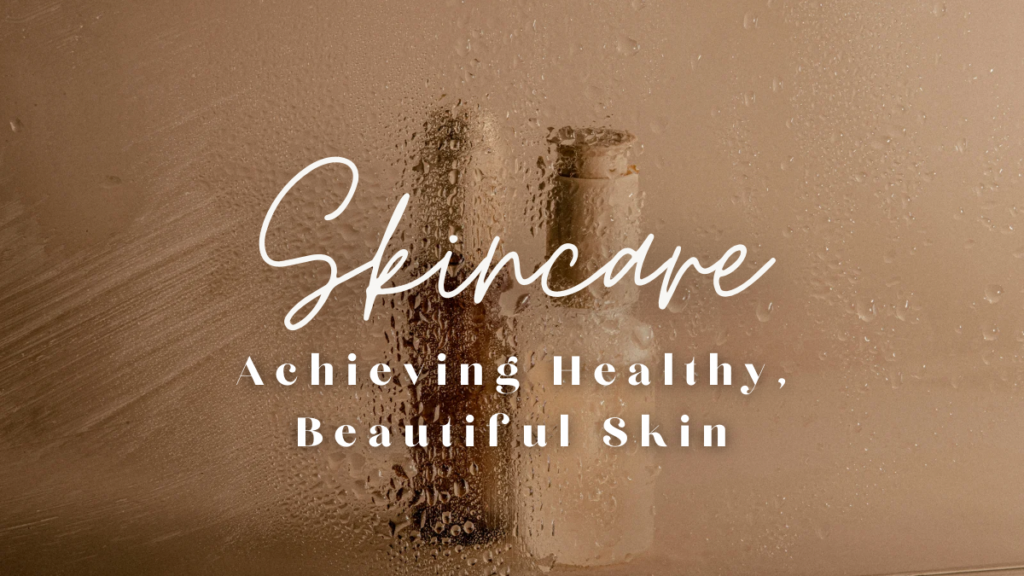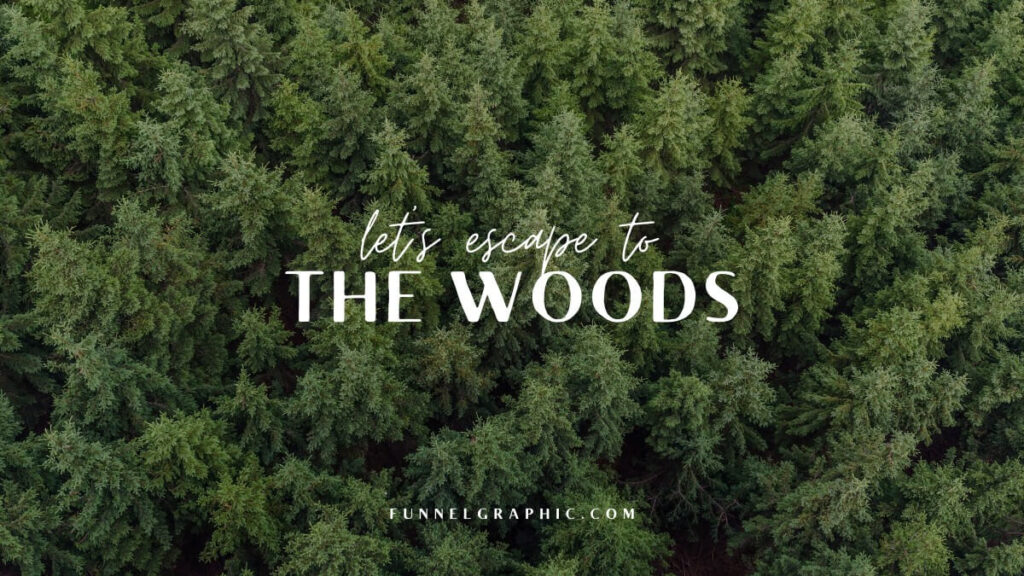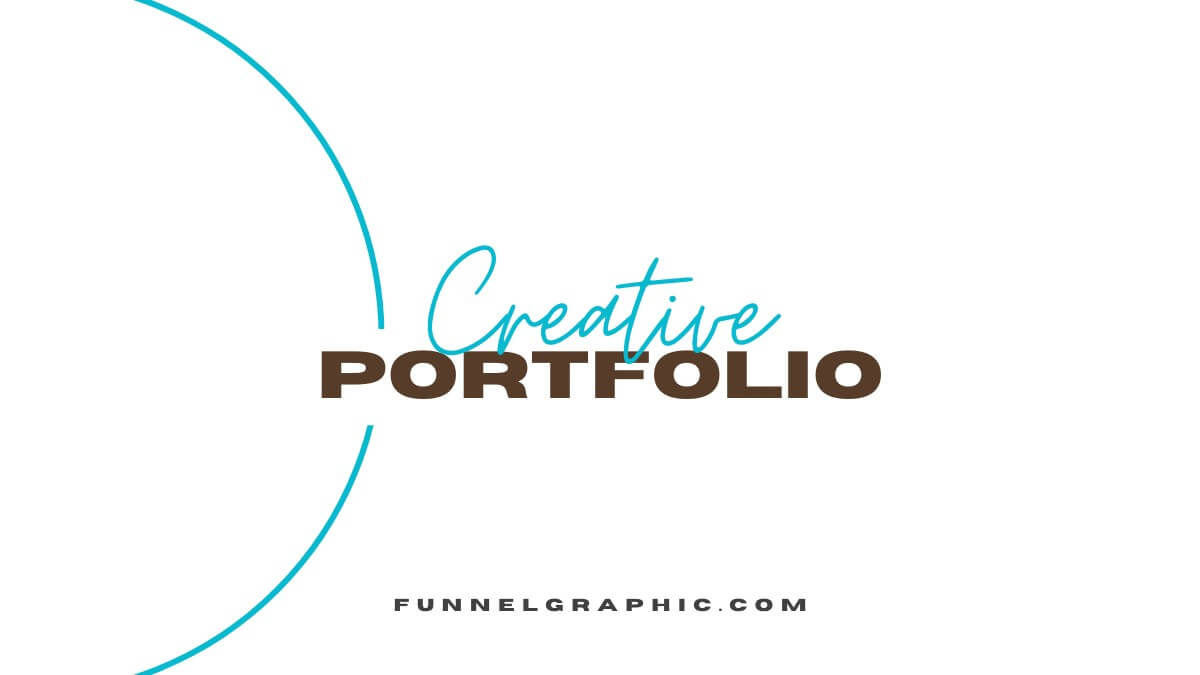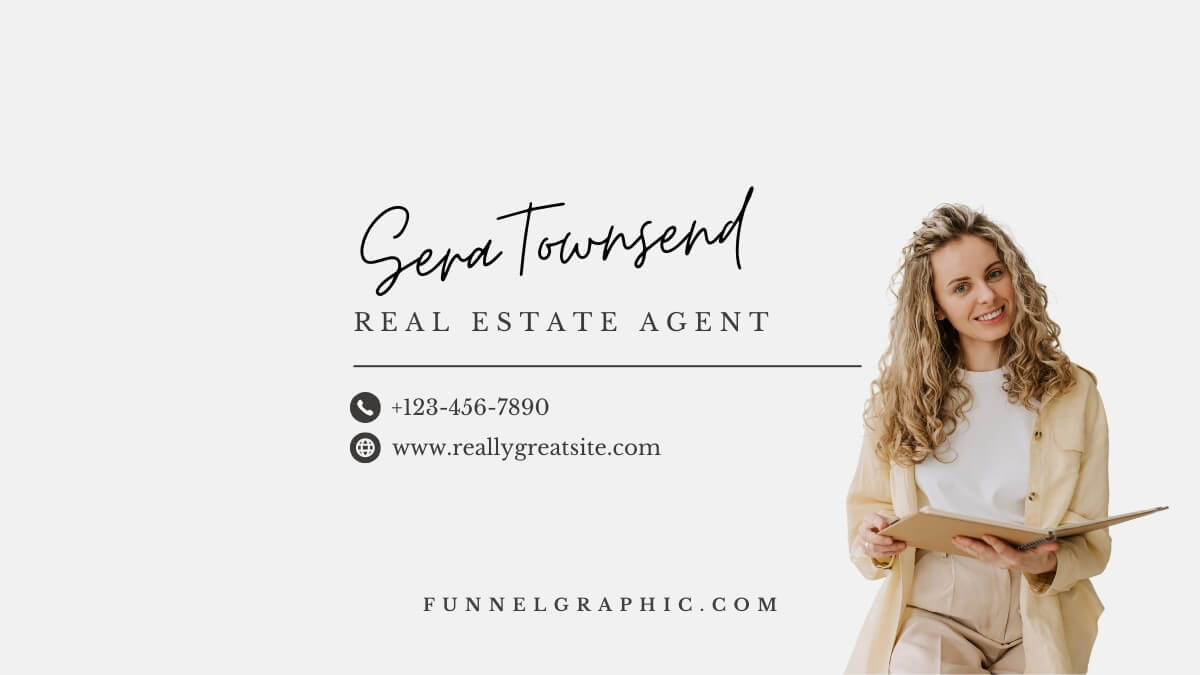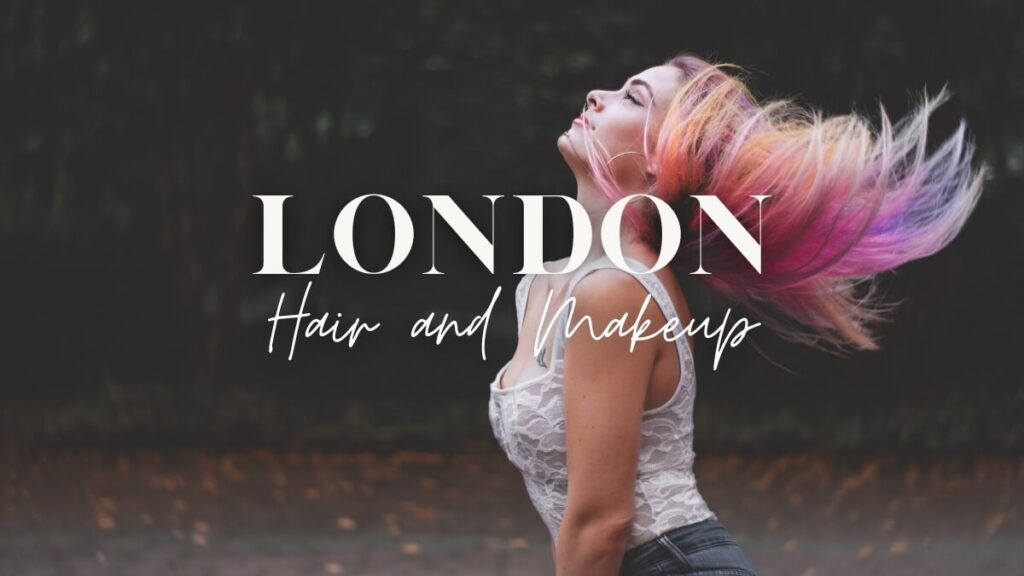
The Moontime font emerges as a distinctive character, with its curvy features and versatility. In this article, you get tons of Moontime font pairing ideas and free Canva templates to use and customize.
Moontime Font Defined
Moontime font, with its distinctive characteristics, is best suited for specific roles within the realm of design.
Its application largely depends on the nature of your project and the message you aim to convey.
- Header and Title Usage: Moontime font excels when used in headers and titles. Its elegance makes it an excellent choice for capturing attention and setting a tone of sophistication and style. In headers and titles, its unique characteristics can be showcased prominently, making a strong visual impact.
- Subtitle Application: As for subtitles, Moontime can be quite effective as well. In this context, it works well to provide a sense of hierarchy and emphasis beneath a main header. Its readability at smaller sizes, compared to headers, is still quite good, making it a versatile choice.
- Body Text Considerations: When it comes to body text, caution is advised. While Moontime’s legibility is commendable, the curvy style might become overwhelming in long paragraphs. For extensive body text, it’s often preferable to choose a simpler, more understated font that complements Moontime’s style without competing for attention.
So based on this, it’s clear that Moontime is best utilized in headers, titles, and possibly subtitles, where its unique qualities can be highlighted without compromising readability.
For body text, it’s best to pair it with a more subdued font to ensure a balanced and harmonious design.
Exploring The Best Ideas For Moontime Font Pairing
In the ever-evolving world of typography, the right font pairing is not just a detail, but a pivotal element of design that can profoundly influence the aesthetic and tone of any project.
Moontime font, is a typeface renowned for its handwritten and cursive characters, also known to be an alternative Barbie font.
From the subtle nuances of typography to the bold statements made thchloerough contrast and harmony, here are some of the best Moontime font combinations created with Canva.
1. Moontime + Belleza
2. Moontime + Garet Bold
3. Moontime + Glacial Indifference
4. Moontime + Lato Bold
5. Moontime + Lora
6. Moontime + League Spartan
7. Moontime + Montserrat Extra Bold
8. Moontime + Now
9. Moontime + TAN Twinkle
10. Moontime + Horizon
11. Moontime + Libre Baskerville
12. Moontime + Brixton Sans
13. Moontime + Chloe
14. Moontime + London
Pairing Moontime With The Right Font
The beauty of Moontime lies in its ability to blend traditional elegance with contemporary design elements, making it a versatile choice for a wide range of projects
These free Canva templates not oserve as a starting point for your creative endeavors but also highlight the adaptability and aesthetic appeal of Moontime in various contexts.
By experimenting with these pairings and templates, you gain valuable insights into the art of typography and learn how to communicate your message with style and elegance effectively.
The key to successful design is not just in choosing the right fonts but in understanding how to pair them to create harmony and contrast, balance and emphasis.